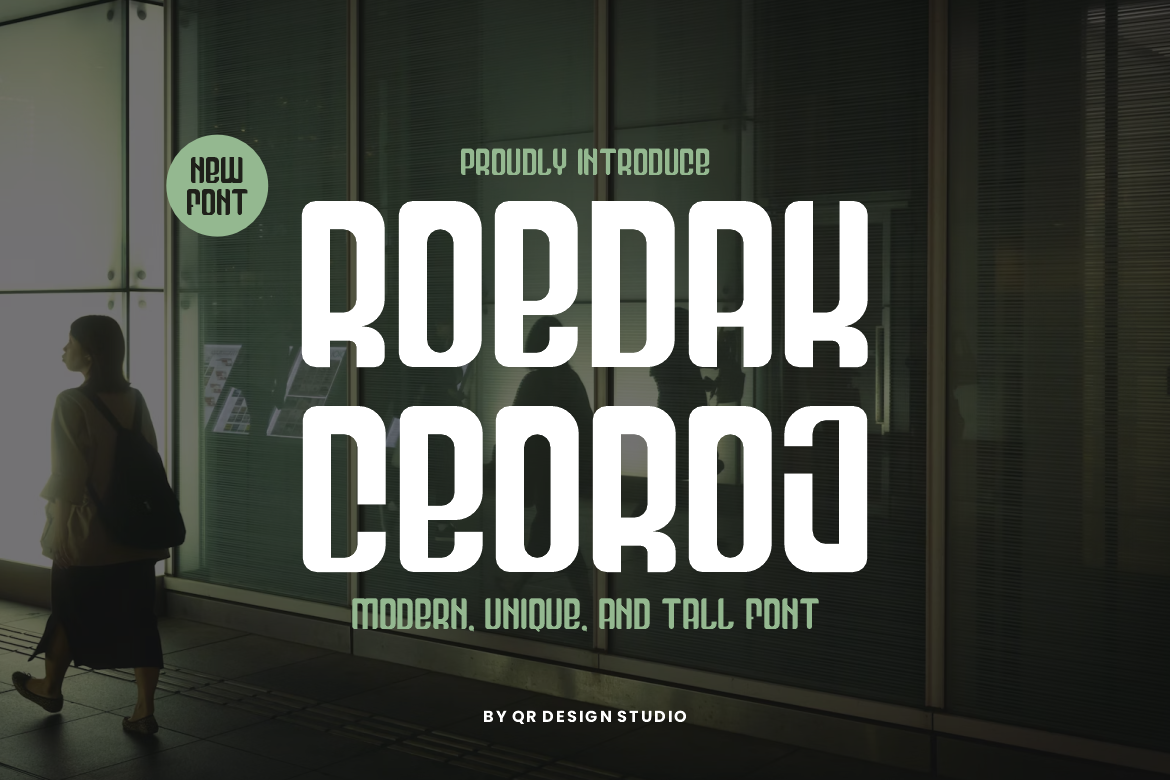
Roedak Ceoroj - Modern & Tall Font
Roedak Ceoroj Font is a bold and authentic display font. The font is suitable for any branding project like poster, logo, sport, and many more. Outstanding in a wide range of contexts.